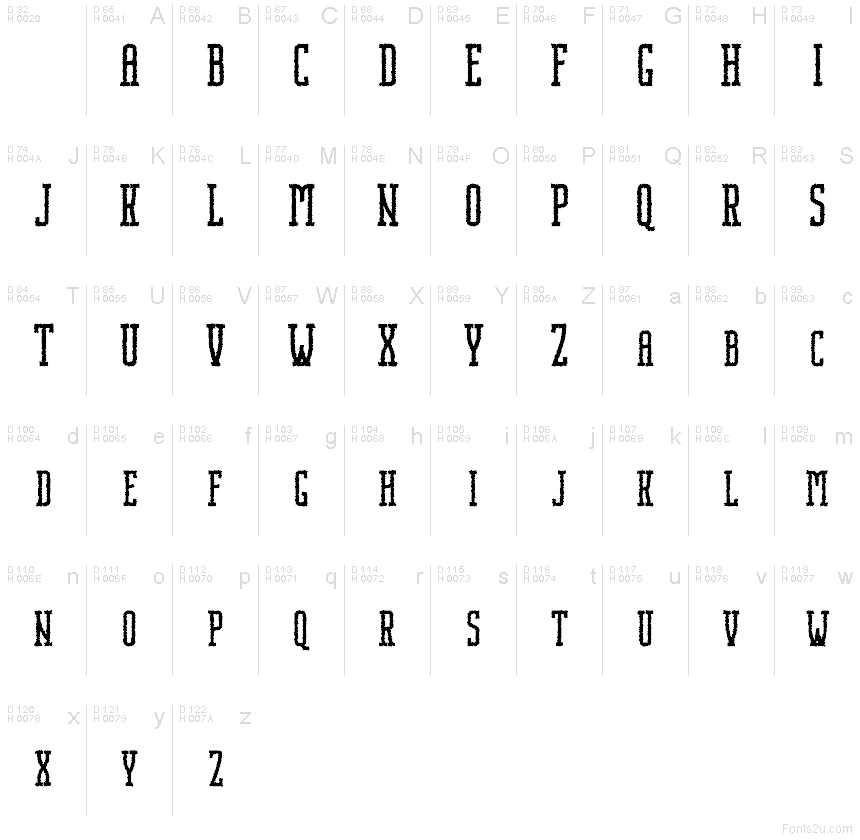
Nordin Slab Rough Regular Demo
Nordin Slab Rough font by Craft Supply Co. captures an eroded condensed slab serif look with worn texture and distress elements. Its thick appearance is modern with a rugged vintage style that creates a visual interest of elegance. The font is perfect for magazine headlines, posters, signage design, packaging projects or labels, web and printed projects like branding designs.
Whether used as the main text on a book cover or box different products’ package copy related to health care, this free grunge-style font will bring your message across.